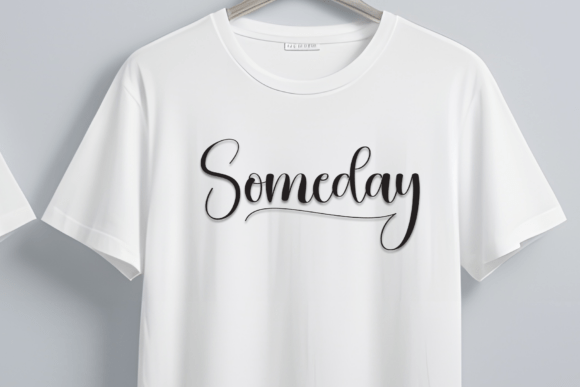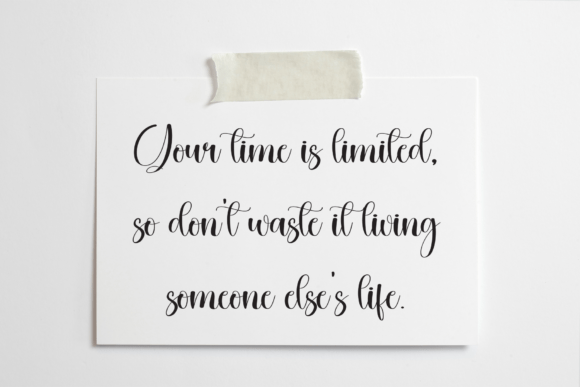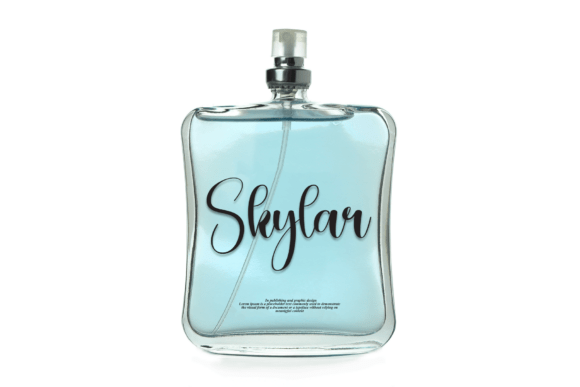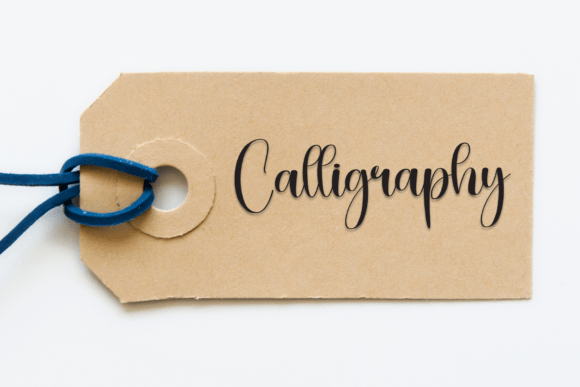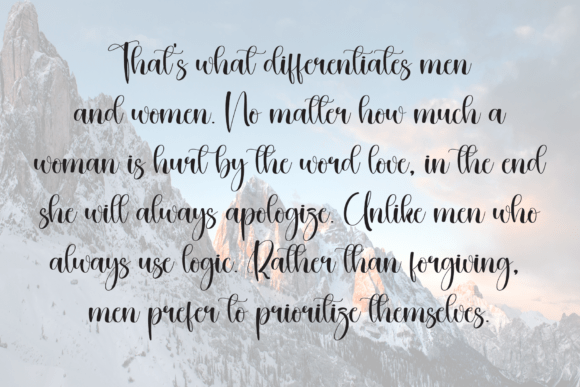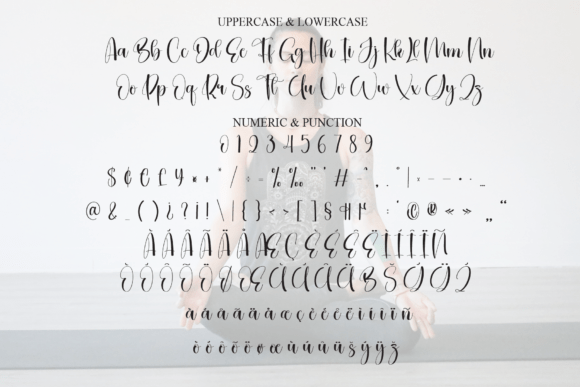
The Soothing Power of Typography
As a designer, have you ever found yourself in a creative block, struggling to find the perfect font to capture the essence of your project? I know I have. It’s those moments of frustration that often lead to a moment of serendipity, like stumbling upon a font that perfectly embodies the mood and atmosphere of your design. For me, that moment came when I discovered the Breathing Font.
Breathing is a stunning handwritten script font that exudes elegance and calm, making it the perfect choice for wellness branding, invitations, and social media quotes. Its smooth curves and sophisticated flourishes bring a sense of peace and beauty to your typography projects, elevating them to a whole new level. As a designer, you’ll appreciate the versatility and value that Breathing Font brings to your work, allowing you to create designs that truly breathe life into your message.
Breathing Font Key Features
- Unique Characteristics: Breathing Font features a dynamic breathing effect, where the font’s shape changes based on the surrounding text, creating a sense of movement and depth
Designer Review: Breathing Font
First of all, I’d like to say that Breathing Font is quite unique and ✨ visually striking. The way it changes the letter spacing based on the font size is a clever feature. It creates a sense of dynamism and can be really effective in certain designs. I also appreciate how it’s available in a range of styles, from casual to formal.
One of the main reasons I’m reviewing Breathing Font is to highlight its potential and limitations. On the one hand, ✨ it’s great for creating attention-grabbing headlines or titles. However, I think it can be a bit overwhelming if used extensively throughout a design. It’s also worth noting that the font’s irregular letter spacing can make it difficult to read in certain contexts, particularly for larger blocks of text.
Here are some key points to consider:
- ✨ Visually striking and unique feature
- Available in a range of styles
- Can be effective for attention-grabbing headlines
- May be overwhelming if used extensively
- Difficult to read in certain contexts
- ⚠️ May require careful typography adjustments
Overall, I think Breathing Font is a solid choice for designers who want to add some visual interest to their work. However, it’s essential to use it thoughtfully and balance it with other design elements to avoid overwhelming the viewer.
Getting the Most Out of Breathing Font
Experiment with different font sizes and styles to create a unique look. Combine Breathing Font with other creative elements, such as graphics and images, to add depth and visual interest. Use the font in creative ways, such as in titles, headings, or even as a design element in its own right.
Breathing Font is ideal for creative projects, such as infographics, posters, and social media graphics. It’s also perfect for adding a touch of personality to business documents, presentations, and marketing materials.